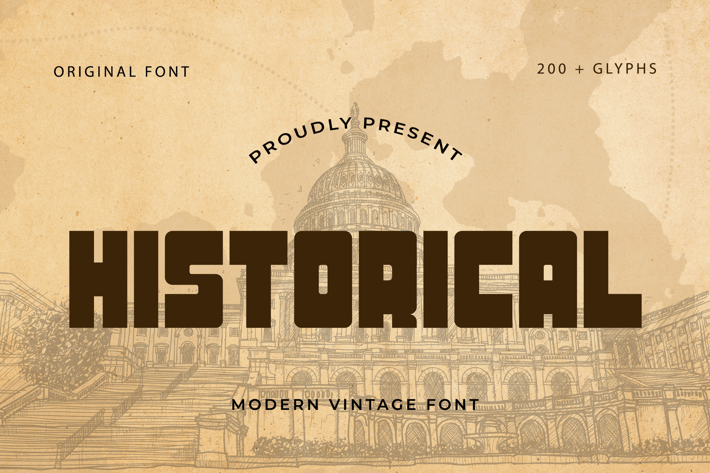
Historical - A Modern Vintage Font
Historical is a unique and stylish modern vintage font designed to bring a touch of classic charm to your design projects. With its nostalgic shapes and refined letterforms, Historical is perfect for retro branding, vintage posters, classic book covers, and elegant packaging. This font merges the timeless appeal of vintage typography with a contemporary twist, ensuring your work stands out with sophistication and character.
Crafted with meticulous detail, Historical features elegant characters that offer excellent readability and visual appeal. Its distinctive design makes it ideal for both headlines and body text, providing a cohesive and polished look across all your visual communications. The font’s versatility allows it to seamlessly integrate into various design contexts, from digital graphics to printed materials.
Elevate your design projects with Historical, a font that embodies the perfect blend of vintage elegance and modernity. Its unique style and adaptability make it an essential addition to any designer’s toolkit for creating refined and memorable visuals. Enhance your work with Historical and experience the charm of modern vintage typography.
Historical is a unique and stylish modern vintage font designed to bring a touch of classic charm to your design projects. With its nostalgic shapes and refined letterforms, Historical is perfect for retro branding, vintage posters, classic book covers, and elegant packaging. This font merges the timeless appeal of vintage typography with a contemporary twist, ensuring your work stands out with sophistication and character.
Crafted with meticulous detail, Historical features elegant characters that offer excellent readability and visual appeal. Its distinctive design makes it ideal for both headlines and body text, providing a cohesive and polished look across all your visual communications. The font’s versatility allows it to seamlessly integrate into various design contexts, from digital graphics to printed materials.
Elevate your design projects with Historical, a font that embodies the perfect blend of vintage elegance and modernity. Its unique style and adaptability make it an essential addition to any designer’s toolkit for creating refined and memorable visuals. Enhance your work with Historical and experience the charm of modern vintage typography.